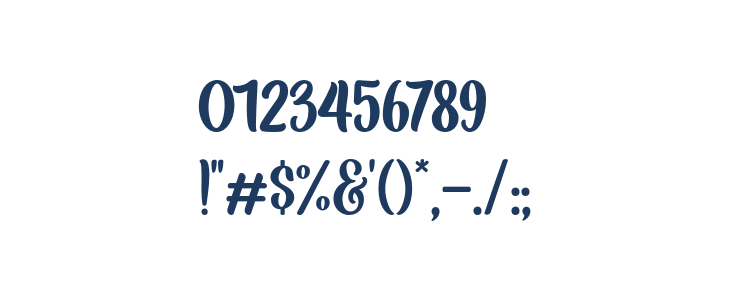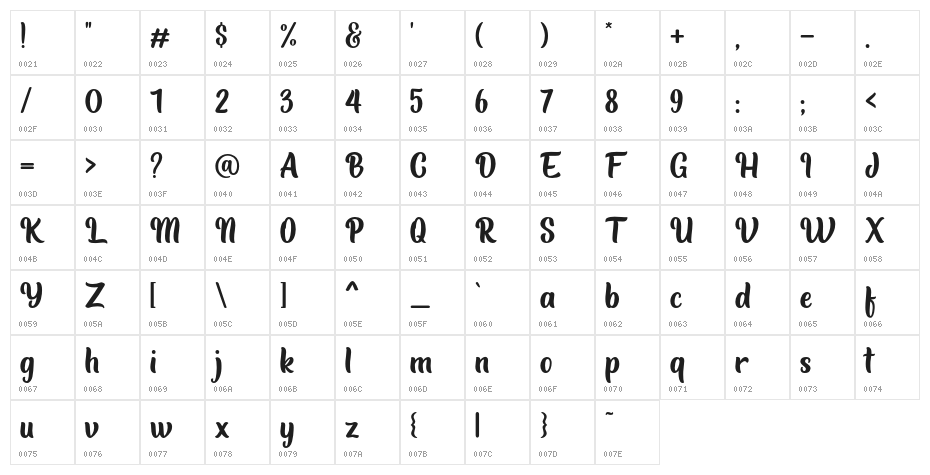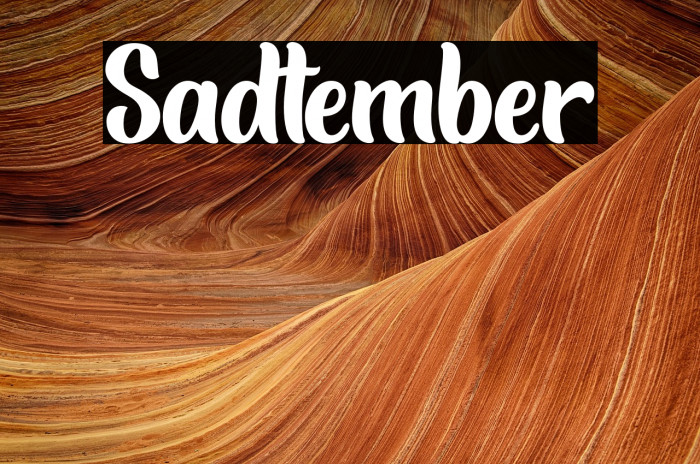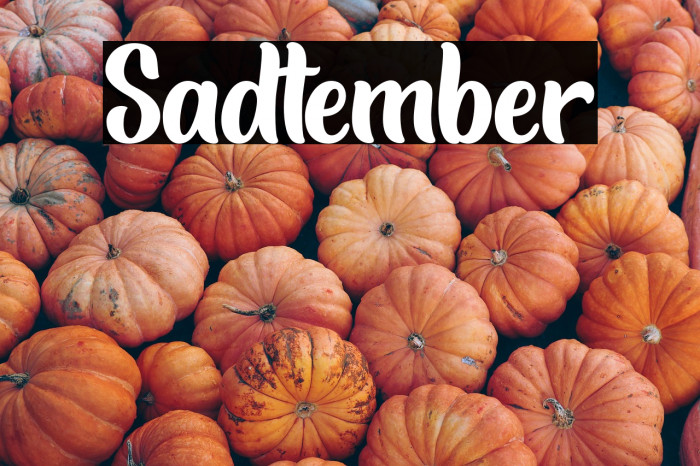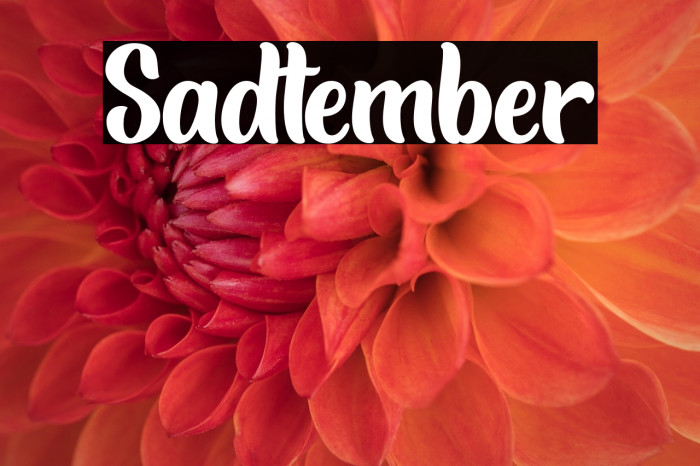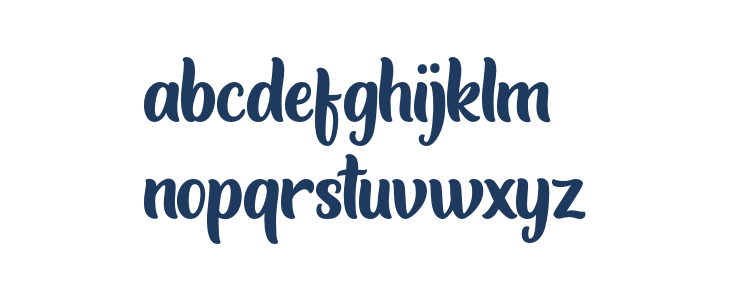
Sadtember Font
Sadtember Description
This font features a bold and playful script style with a handwritten feel. The letters are slightly slanted, giving a dynamic and lively appearance. The strokes are thick and rounded, providing a sense of warmth and friendliness. The uppercase letters are distinct with a whimsical flair, while the lowercase letters maintain a consistent flow, enhancing readability. Numbers and special characters are designed to match the overall playful aesthetic, making them suitable for creative and informal contexts.